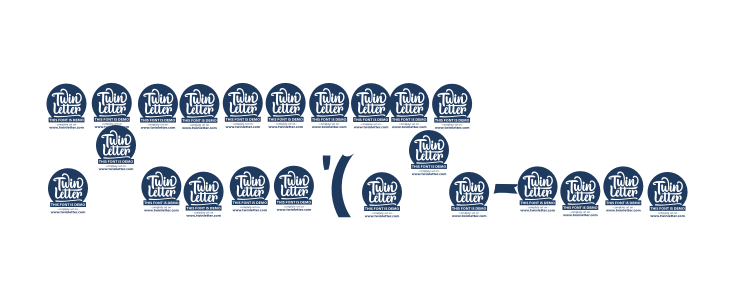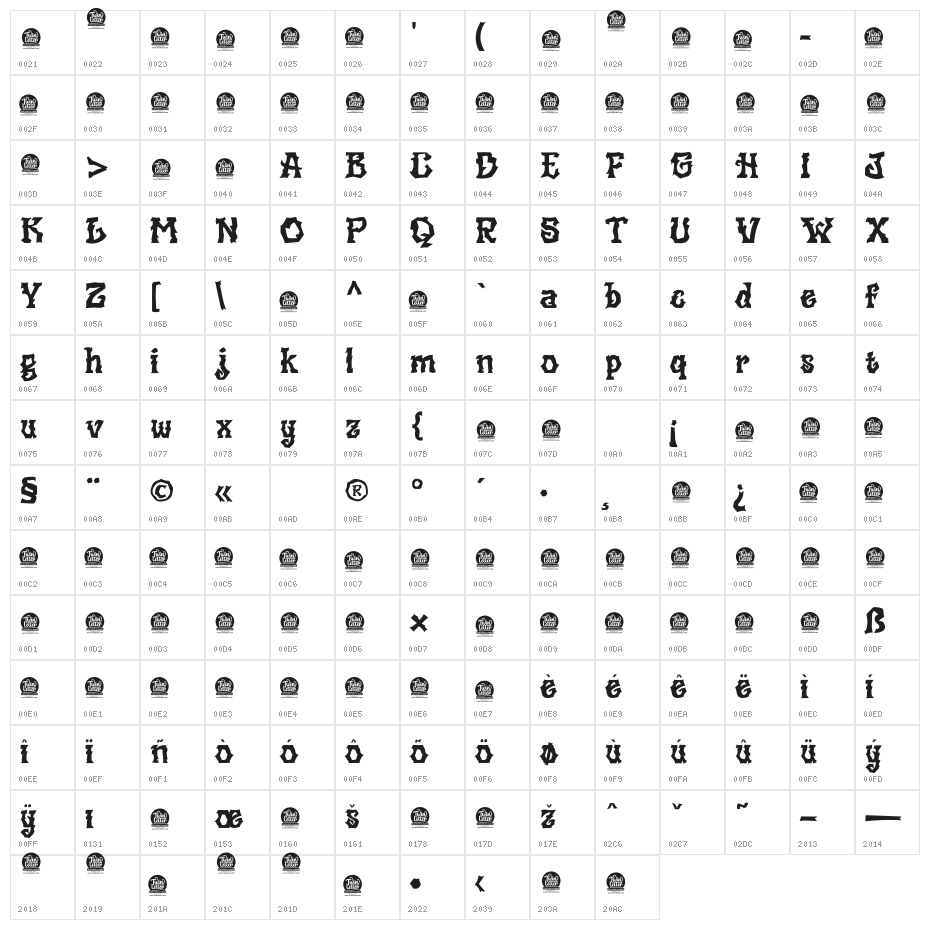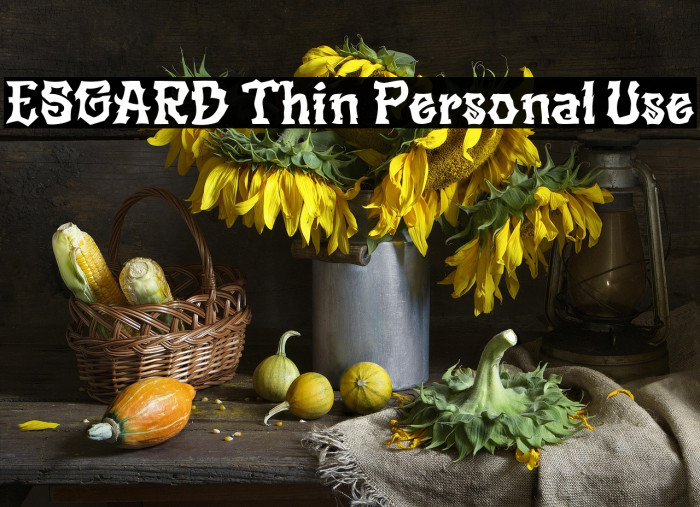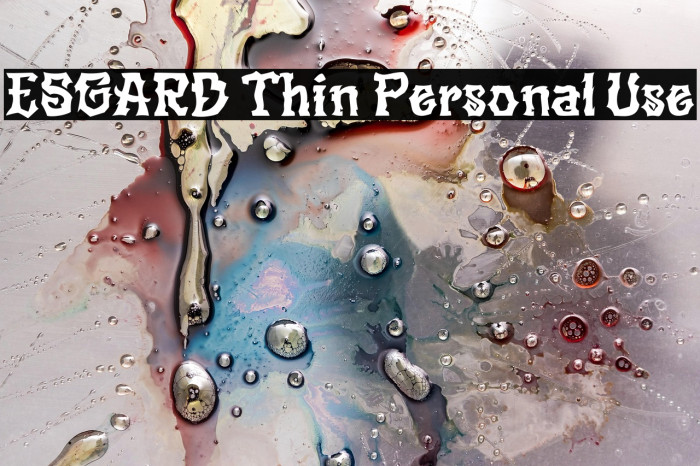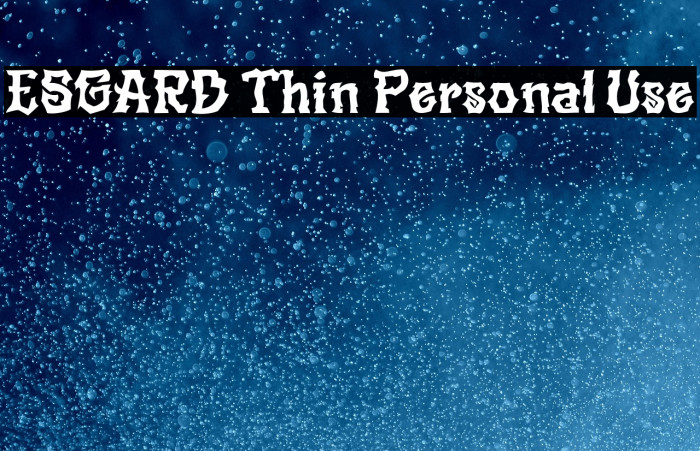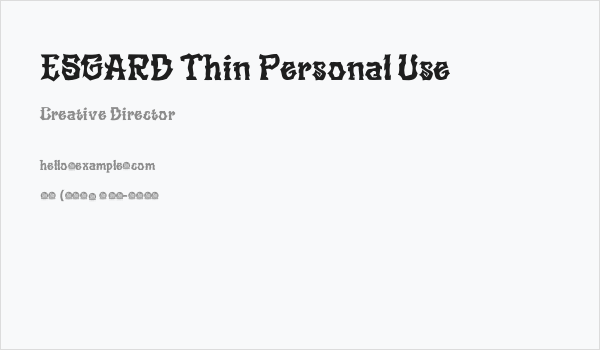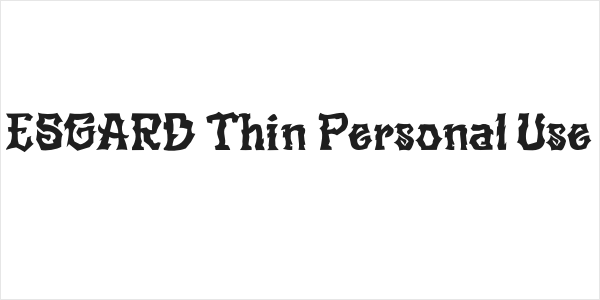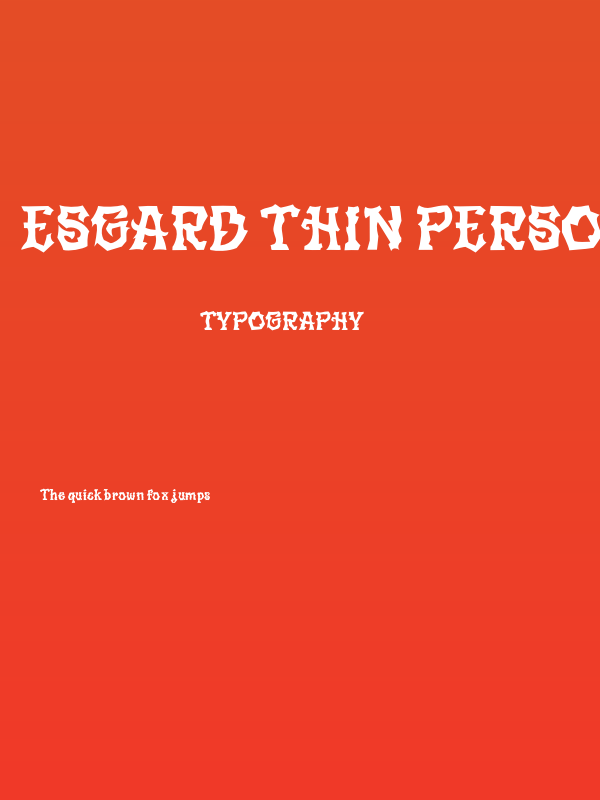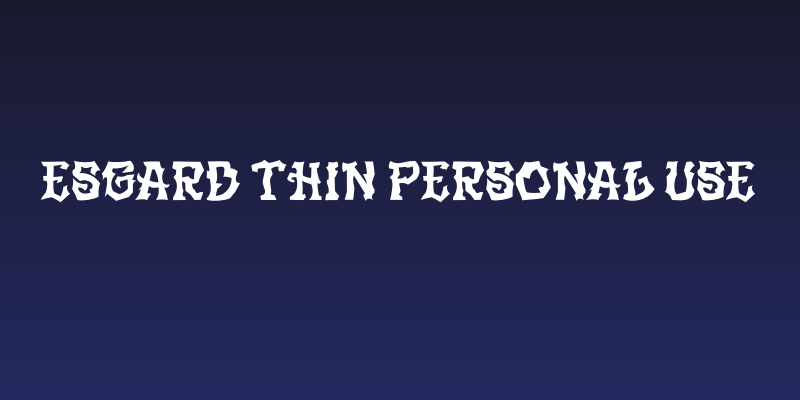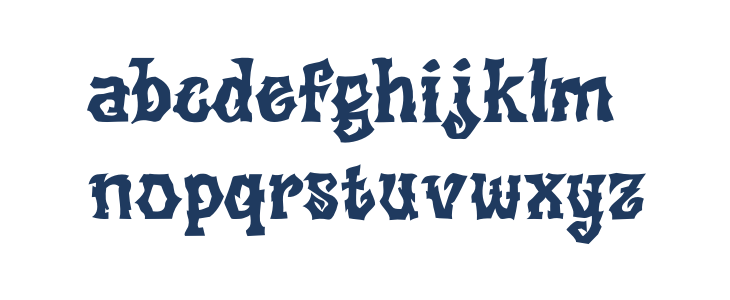
ESGARD Thin Personal Use Font
ESGARD Thin Personal Use Description
This font features a bold and striking design with sharp, angular edges and a gothic-inspired aesthetic. The uppercase letters are particularly prominent, with a strong presence that commands attention. The lowercase letters maintain the same angular style, creating a cohesive look across the alphabet. The numbers and special characters are designed to match the overall theme, ensuring consistency throughout. The font's unique style makes it ideal for projects that require a dramatic and eye-catching typeface.
| Overall Style | Gothic, Dramatic |
| Proposed Projects | Ideal for posters, album covers, branding, and any design requiring a dramatic and bold typeface. |